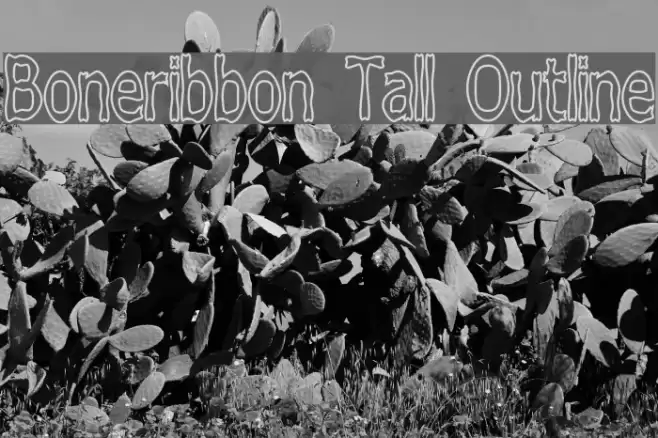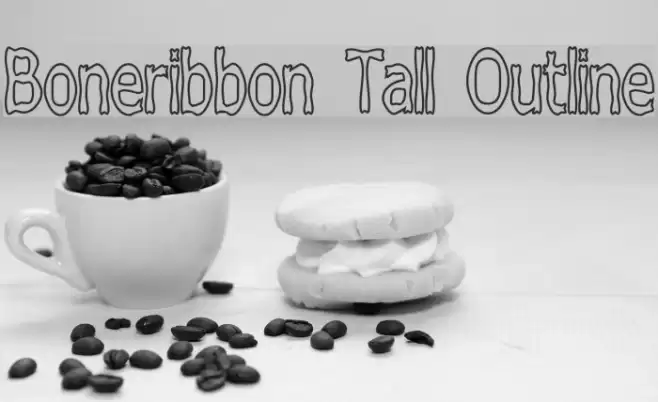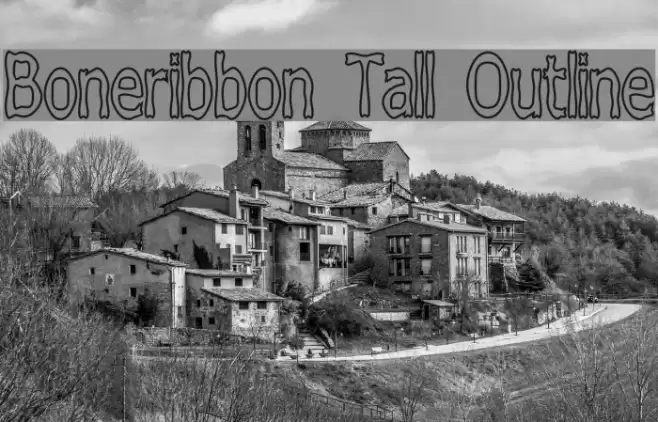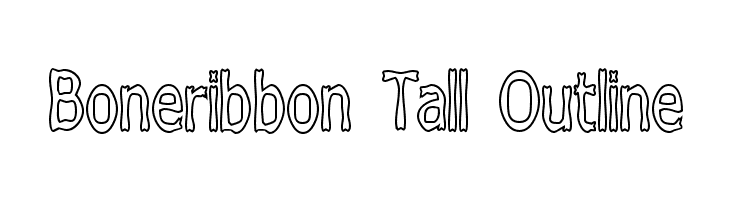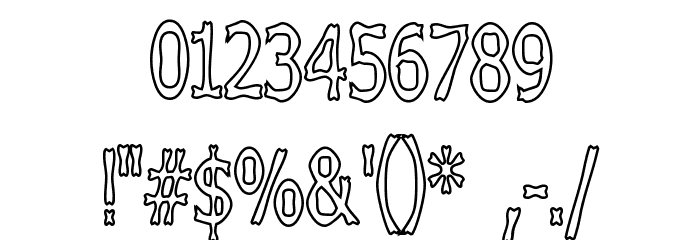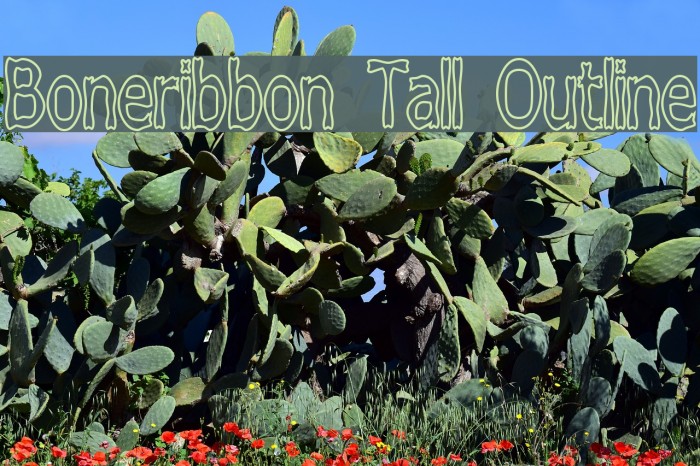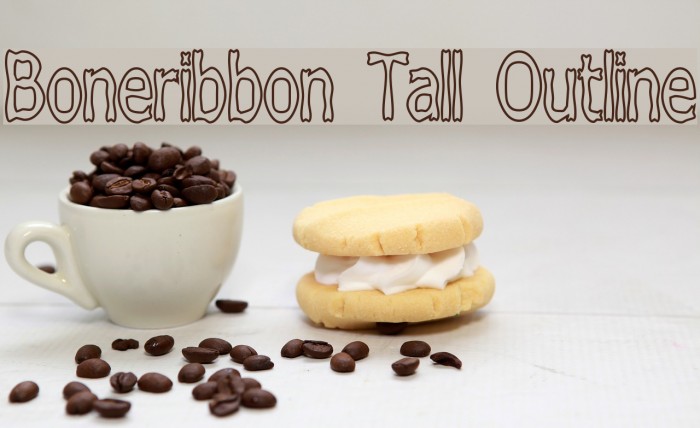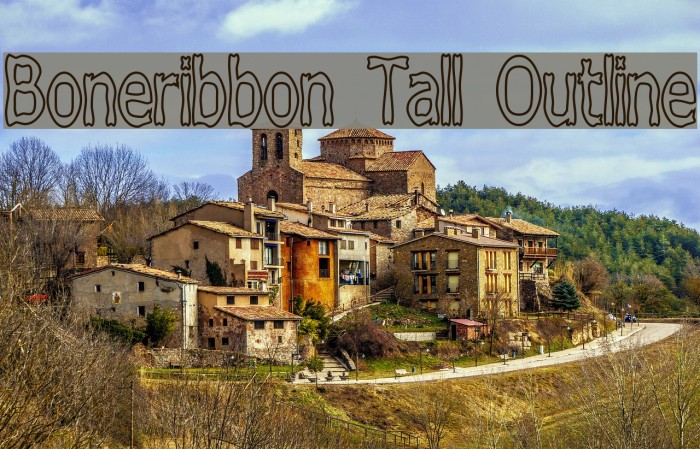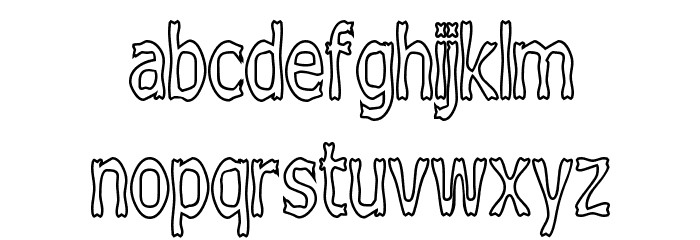
Boneribbon Tall Outline Font
Boneribbon Tall Outline Description
This font features a unique outline style with a playful and slightly irregular form, giving it a hand-drawn appearance. The characters are tall and narrow, with a whimsical, artistic flair that makes them stand out. The uppercase and lowercase letters maintain a consistent style, while the numbers and special characters complement the overall design. The font's outline effect adds a layer of depth and creativity, making it suitable for eye-catching designs.
A playful, hand-drawn outline font with tall, narrow characters from Outline fonts.
- Proposed Projects: Ideal for creative projects such as posters, invitations, and artistic branding where a unique and playful touch is desired.